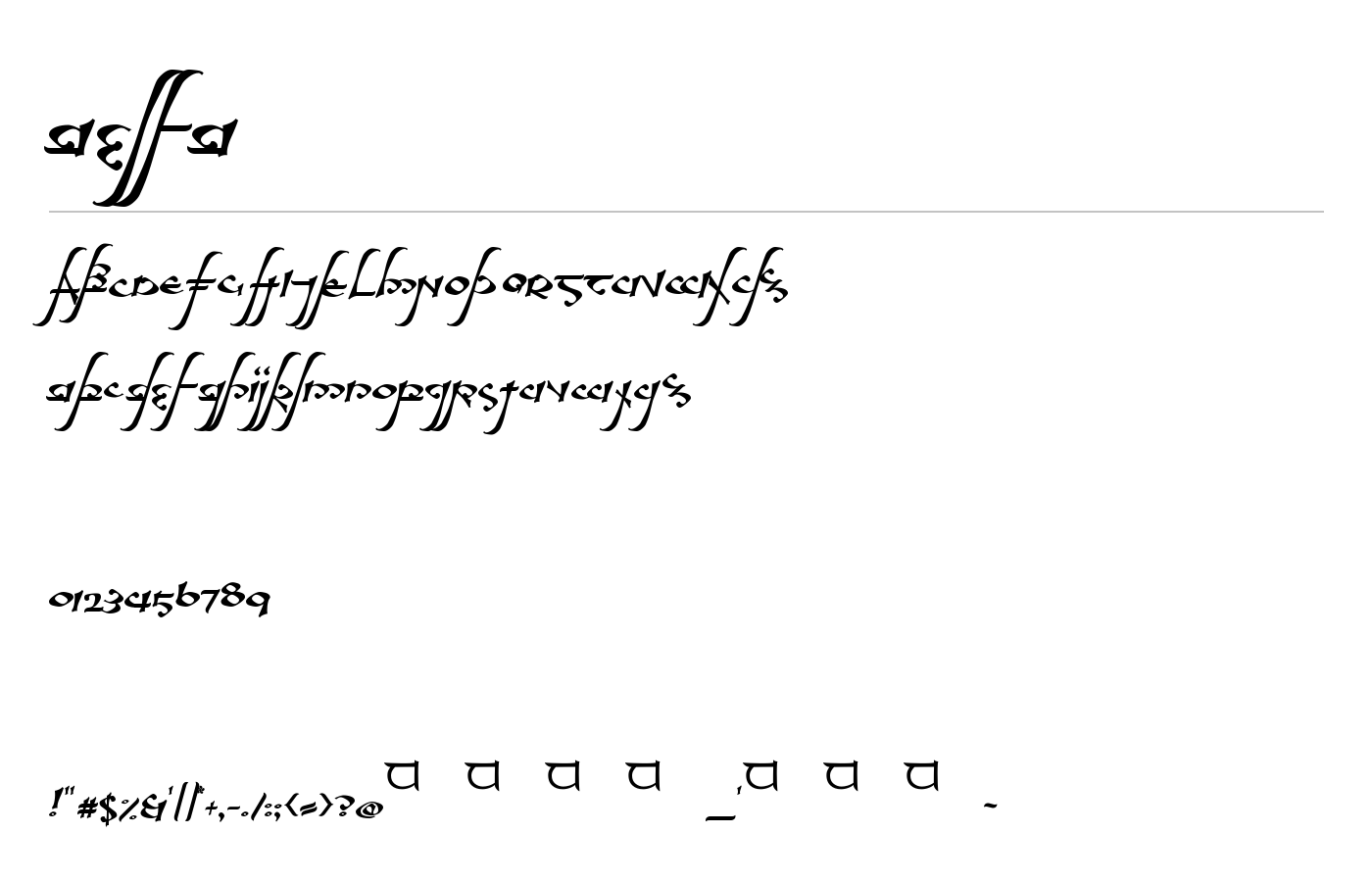
Aelfa is an elegant script font with a calligraphic style that features flowing, cursive letterforms and a distinctive, artistic flair. Its delicate, high-contrast strokes and unique character shapes convey a sense of sophistication and creativity, making it ideal for decorative use in invitations, branding, or projects that require a touch of refined, handcrafted charm. This font works best for display purposes where its intricate details can be appreciated.
aelfa Font
About aelfa Font